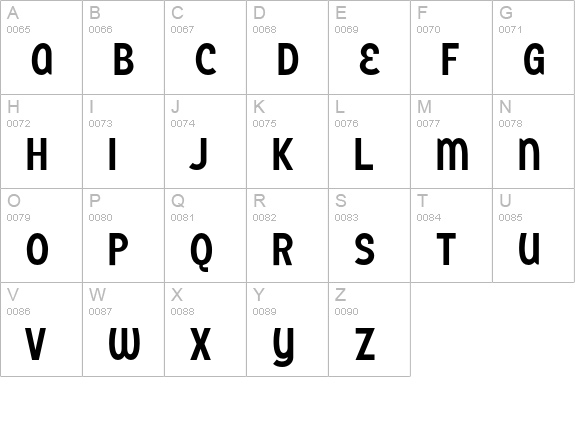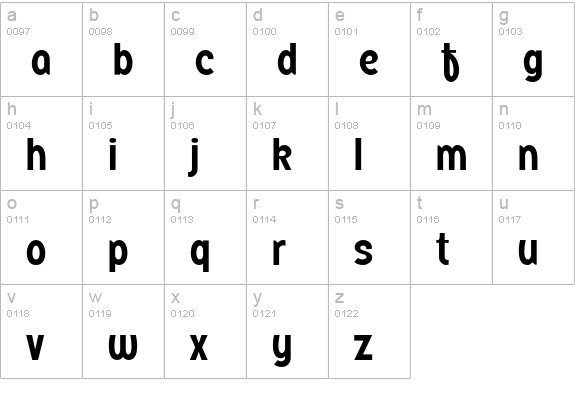
Sister-Medium Font Details
Sister-Medium is a balanced, medium-weight variant in the Sister typeface family \xE2\x80\x94 well suited to sub-headlines, navigation, and balanced editorial work.
Introducing Sister-Medium, a captivating and versatile font that effortlessly combines modern elegance with a touch of sophistication. This font is the perfect choice for those seeking a balance between contemporary design and timeless appeal. Sister-Medium boasts a unique blend of clean lines and subtle curves, resulting in a visually pleasing and harmonious typeface. Its medium weight offers a balanced and legible look, making it ideal for a wide range of design projects. Whether you're designing a logo, creating a striking headline, or crafting a visually engaging poster, Sister-Medium is sure to make a lasting impression. Its versatility allows it to adapt seamlessly to various design styles, from minimalistic and sleek to bold and expressive. One of the most remarkable features of Sister-Medium is that it is available for free. That's right, you can easily download this exceptional font at FontsMarket.com without spending a penny. This makes Sister-Medium an invaluable asset for designers, allowing them to elevate their projects without breaking the bank. With its effortless charm and freely accessible nature, Sister-Medium is a font that truly stands out from the crowd. Embrace its captivating allure and unlock endless design possibilities, all at the tip of your fingertips. Download Sister-Medium today and let your creativity soar to new heights.